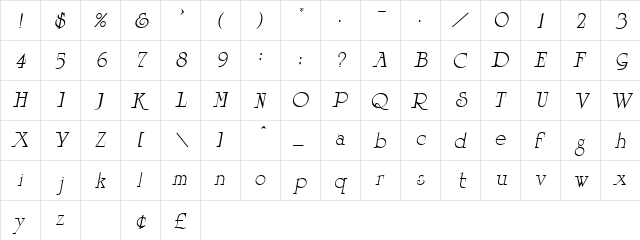
Rimsky Oblique
Design Context for Rimsky Typeface
Rimsky takes a measured approach to typography — its balanced proportions and neutral character make it a reliable workhorse for both digital and print work. Its italic angle brings a sense of urgency and motion to the letterforms.